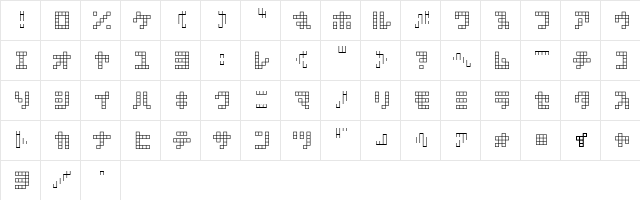
square type kana kana
Design Context for square type kana Typeface
square type kana takes a measured approach to typography — its balanced proportions and neutral character make it a reliable workhorse for both digital and print work.